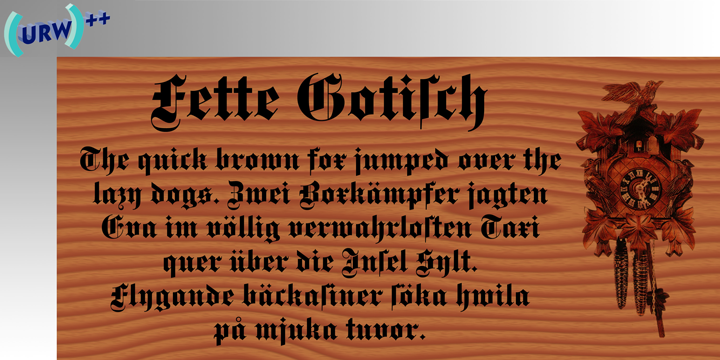
Fette Gotisch Font is an exceptional choice for projects that demand a powerful, dramatic, and historically rich aesthetic. It's perfectly suited for medieval-themed designs, vintage product labels, heavy metal band logos, fantasy book covers, and any application where you want to evoke a sense of ancient texts, strong tradition, and gothic grandeur. Imagine it gracing a historical document replica, adding a formidable presence to a gaming title, or giving a unique, authoritative voice to a brand with a profound sense of heritage. Its intricate, bold strokes and classic blackletter forms ensure your message is conveyed with both gravitas and an undeniable visual impact.
What makes Fette Gotisch Font so exciting is its profound connection to a storied past, bringing a sense of solemnity and artistic weight to contemporary designs. It’s more than just a typeface; it’s a portal to an era of detailed craftsmanship and powerful statements, allowing designers to tap into the dramatic aesthetic of historical scripts. This font doesn't just display text; it tells a compelling story, making every word feel significant and imbued with a sense of the monumental. It's the ideal tool for projects that demand a unique blend of historical accuracy and commanding visual presence.
The Fette Gotisch Font family typically focuses on delivering its signature robust blackletter style with precision. You might find a standard Regular weight that embodies its core intricate design, along with potential variations that enhance its bold appearance or slightly modify its stylistic flourishes for specific applications. These nuances ensure that Fette Gotisch Font Free Download can be the cornerstone of a truly unique and historically inspired visual identity, helping your designs stand out with an undeniable sense of character and profound tradition.